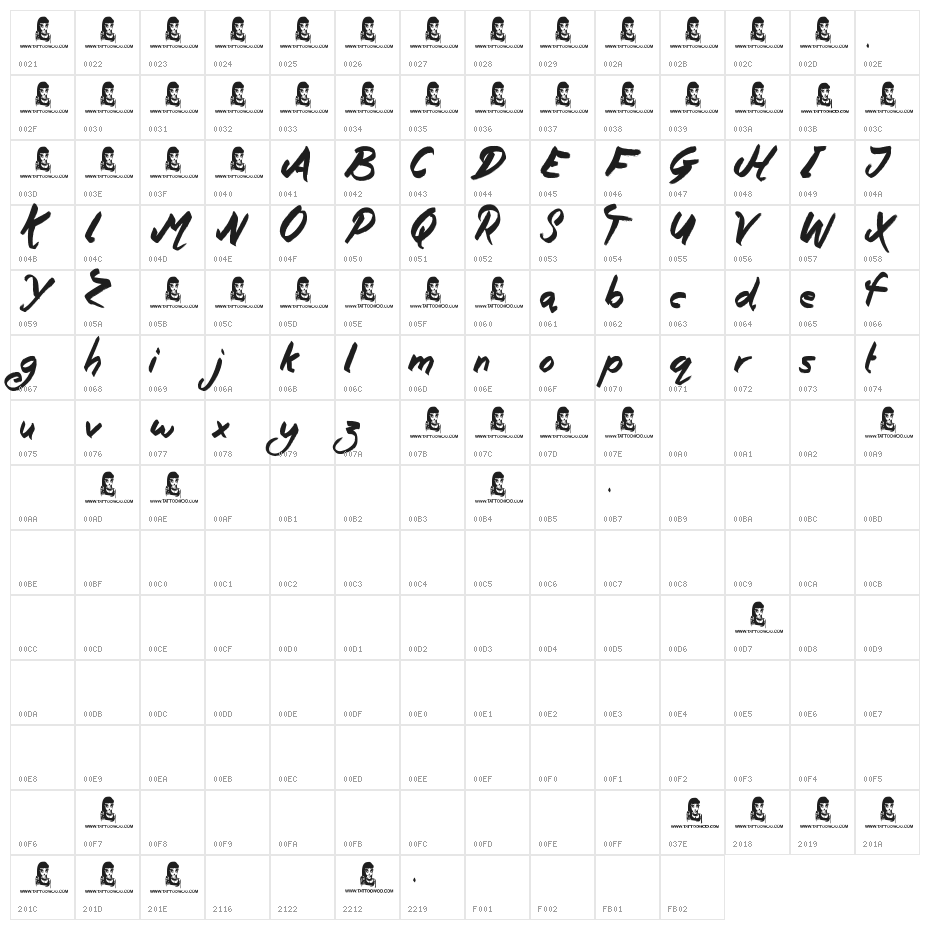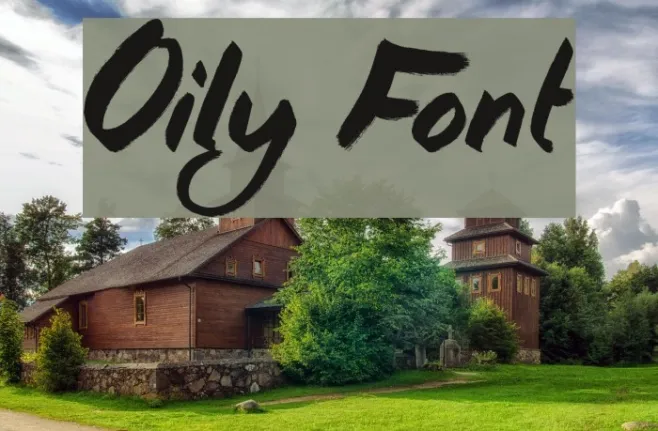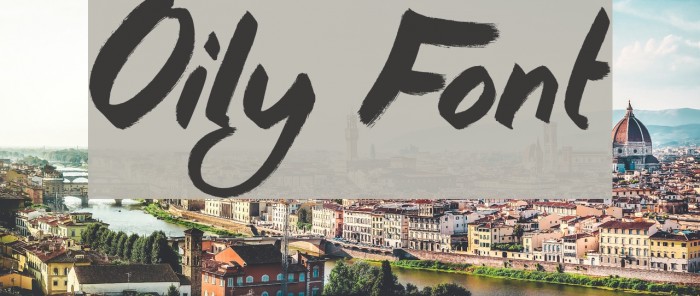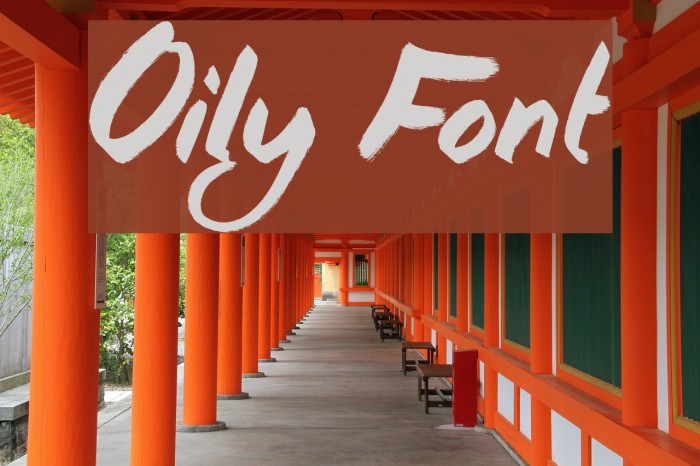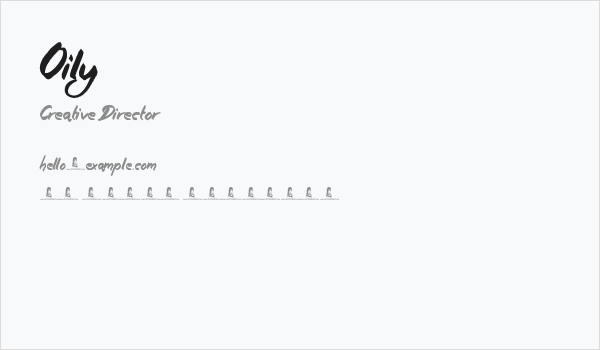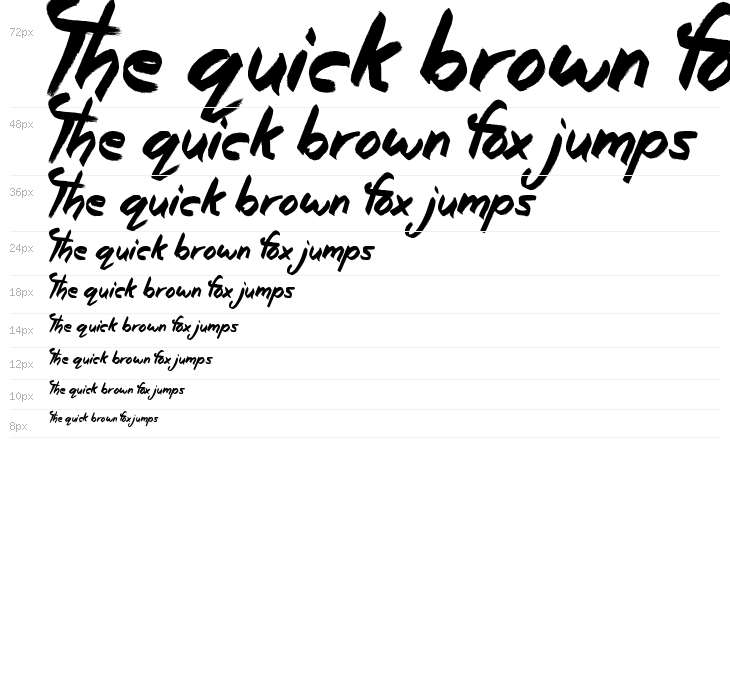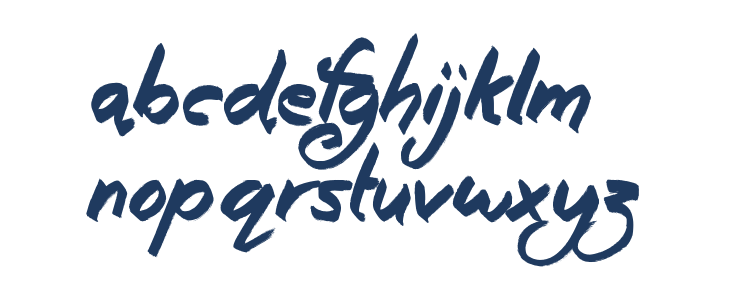
Oily Font
Oily Description
This font features a bold and expressive script style, characterized by its fluid, brush-like strokes that convey a sense of motion and energy. The letters are slightly slanted, giving it a dynamic and informal appearance. The uppercase and lowercase letters maintain a consistent style, with exaggerated curves and varying stroke widths that add to its artistic flair. The font's design is reminiscent of calligraphy, with a modern twist that makes it suitable for creative and eye-catching designs. Its boldness ensures high visibility, making it ideal for impactful headlines or artistic projects.
| Use Case | Headlines, Logos, Artistic designs |
| Proposed Projects | Ideal for creative projects such as logos, posters, and artistic branding materials that require a bold and expressive touch. |